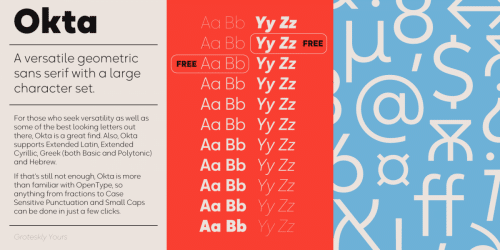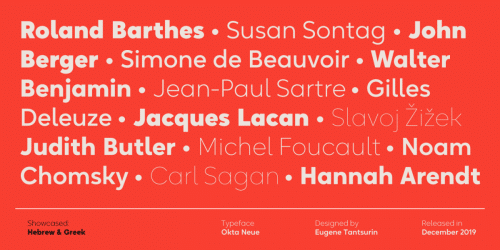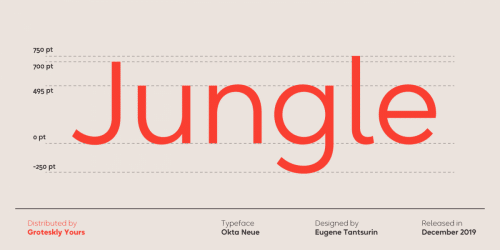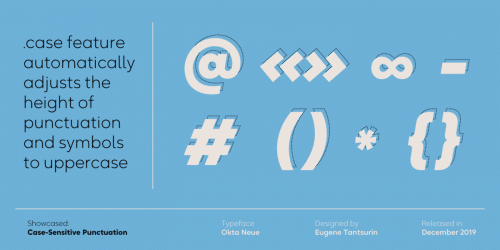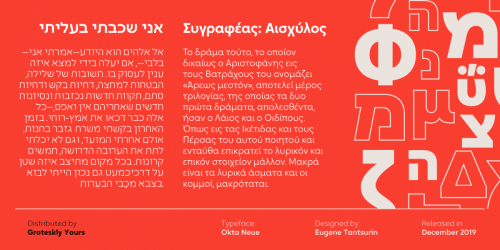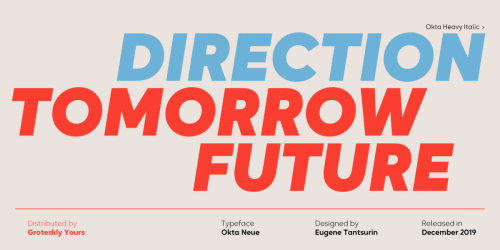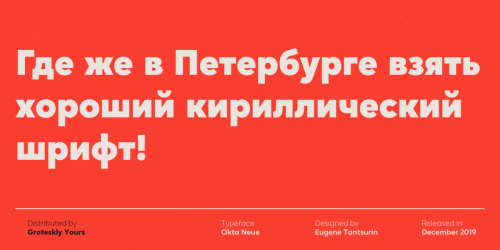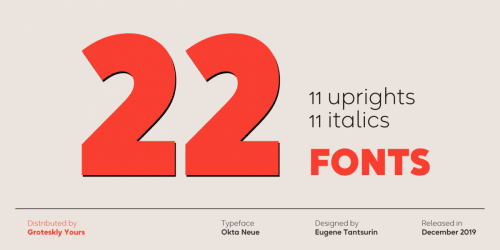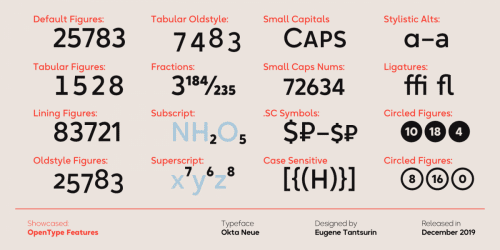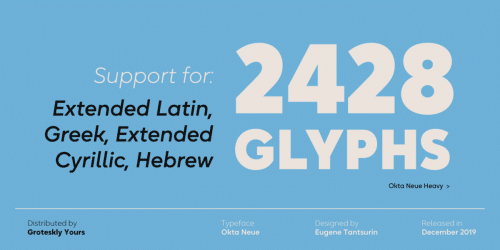
Okta Neue is an extended version of a more limited Okta family, released on MyFonts in 2019.
Okta Neue inherits the best traits of Okta—great legibility, simple geometric letters shapes, low contrast across all styles—but also introduces what Okta fell short of: extensive language support and enhanced OpenType features.
Working on Okta Neue, we strove to create a neutral typeface that would be a workhorse for designers, typographers and other font users alike. Building onto the familiar shapes of Okta, we tried to make them more neutral, at the same time preserving the unique character of the typeface. Certain characters remained the same, others have undergone a complete transformation, which left them better tailored for the wide implementation range of Okta Neue.
The size of the character set in Okta Neue was significantly expanded (2420 vs. 600 symbols) as the Extended Latin set was added and new language systems (Extended Cyrillic, Greek — both Basic and Polytonic — and Hebrew) were introduced. The already vast Cyrillic set also includes localized forms for such languages as Bulgarian, Serbian and many others.
Okta Neue is OpenType friendly: it knows how to do alternatives, contextual alternatives, switch various between stylistic sets and adjust the height of punctuation and symbols as you type. Small Caps include all listed languages as well as numerals and symbols. Okta Neue comes equipped with various styles of numerals — from standard Proportional Lining figures to Oldstyle, Tabular Oldstyle. Sub- and Superscript, Fractions and two sets of circled numbers. Okta Neue is well-kerned with more than 3000 kerning pairs and automatically hinted.
Okta Neue comes in 22 styles (11 uprights and 11 italics), two of which — Ultra Light and Black Italic — can be downloaded free of charge to get a firsthand experience of what Okta Neue is ready to offer.
- Designer: Eugene Tantsurin